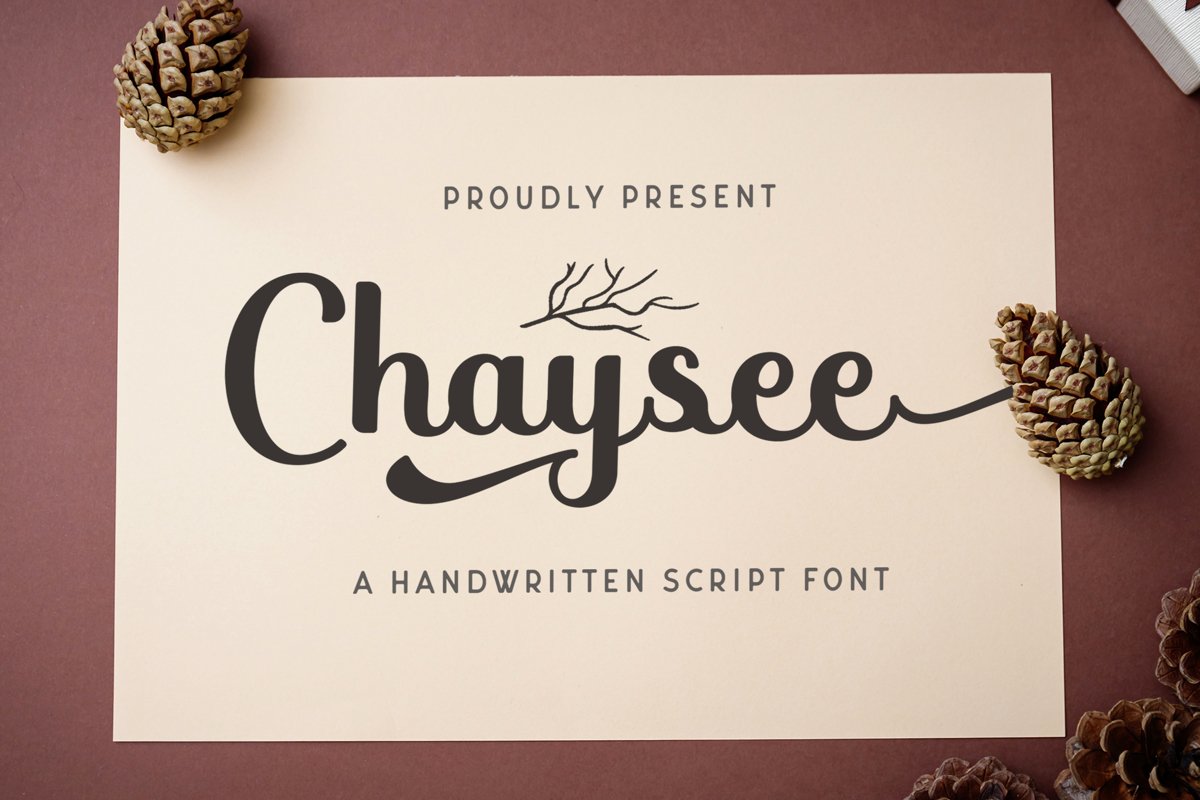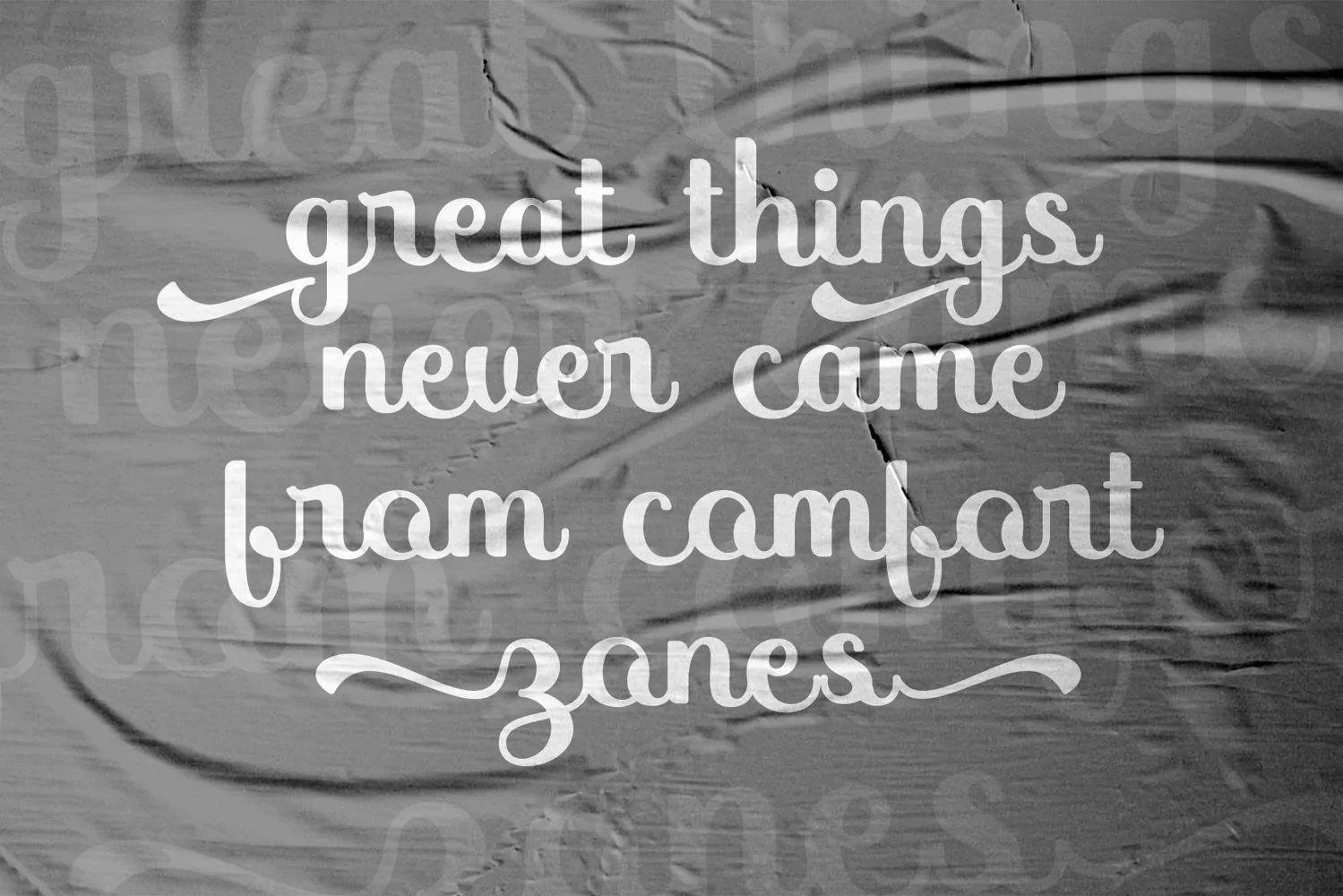
Chaysee is a script handwritten typeface. Perfect for display, quotes, print, frame, merchandise, packaging, business card, emblem, logo, logotype, badges, branding, crafting and many more.